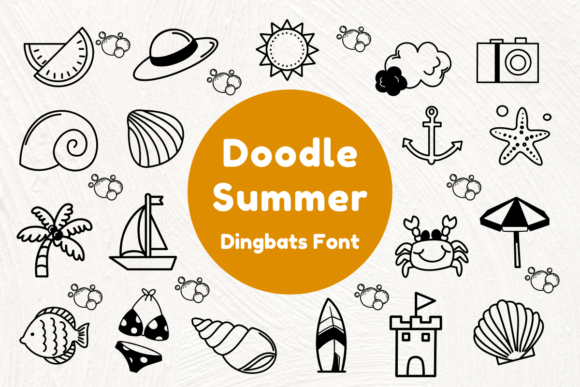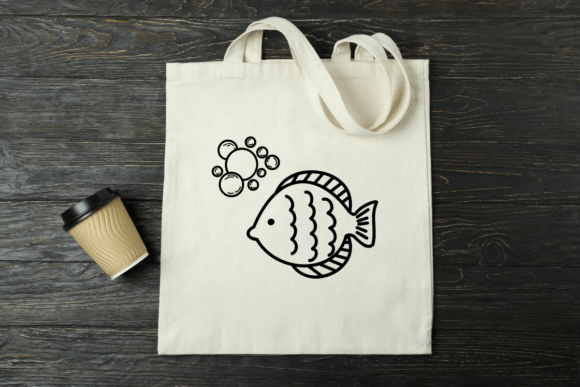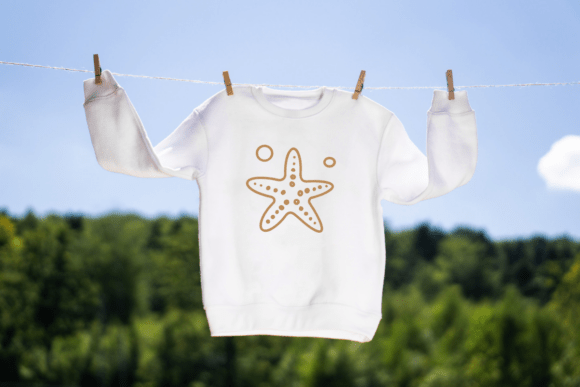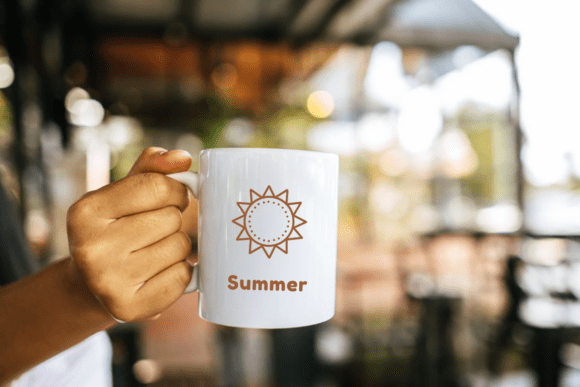
Doodle Summer Font
About the Doodle Summer Font
Let us introduce you to Doodle Summer Font, where timeless design meets modern craftsmanship. Doodle Summer is a dingbats font with a warm theme. This font can enhance your creative projects such as wedding invitations, DIY, crafts, decorations, logos, and many other creative ideas.
Doodle Summer’s playful, hand-drawn aesthetic makes it ideal for projects requiring a lighthearted and approachable feel. It excels in headlines, short text segments on packaging, and branding elements for businesses targeting a younger demographic or those with a casual, summery vibe. Avoid using it for body text or lengthy paragraphs; its informal nature hinders readability in extended use.
Consider pairing Doodle Summer with a clean sans-serif like Open Sans for a balanced contrast, or a classic serif like Playfair Display for a more sophisticated yet still friendly feel. For a more whimsical approach, a script font with a similar organic quality could also be effective.
The font’s core personality is undeniably cheerful and informal, making it unsuitable for projects needing a serious or professional tone. Its strength lies in conveying warmth and lightheartedness.
Doodle Summer Font Usage Examples
Doodle Summer Font Example